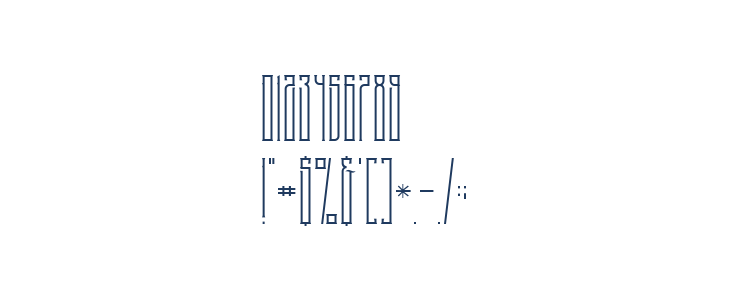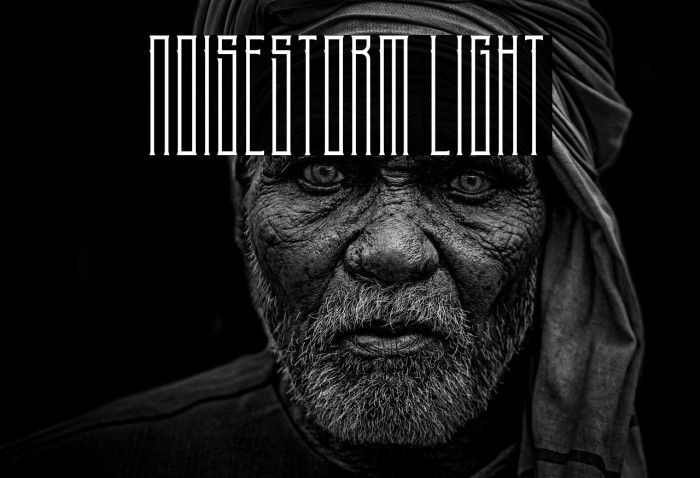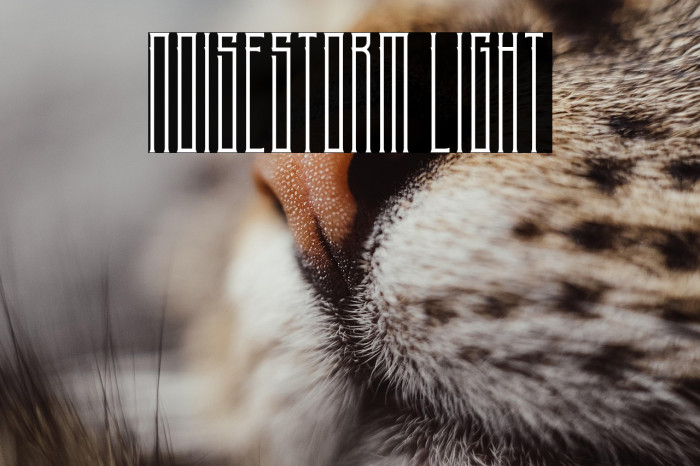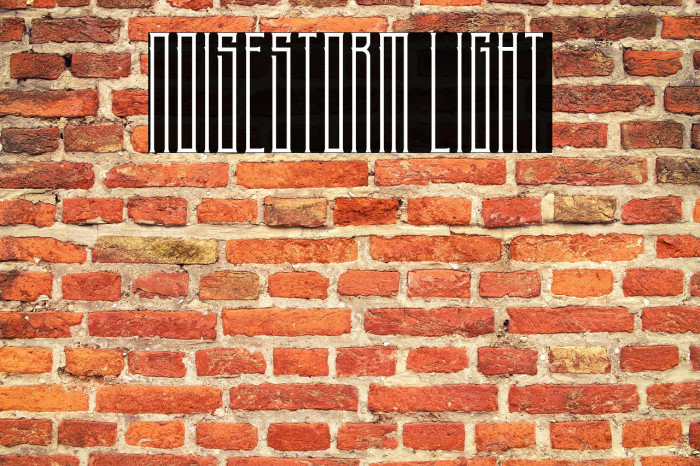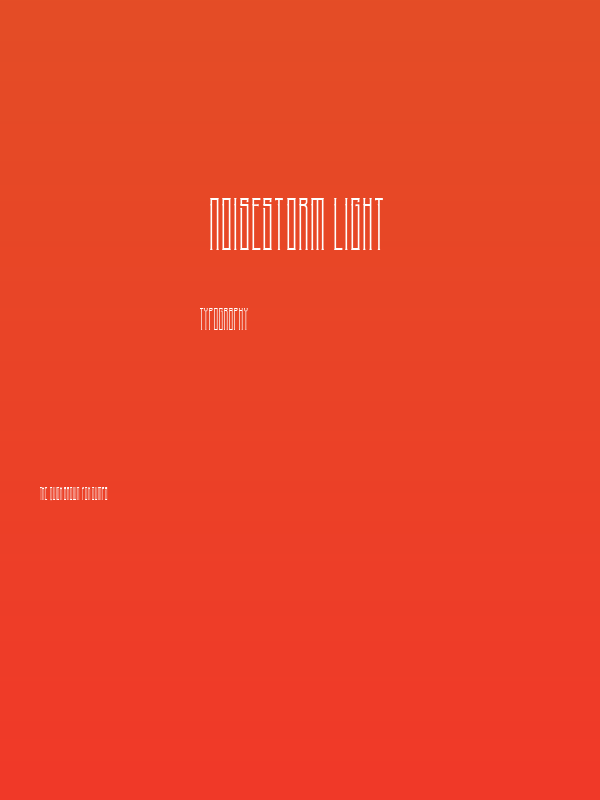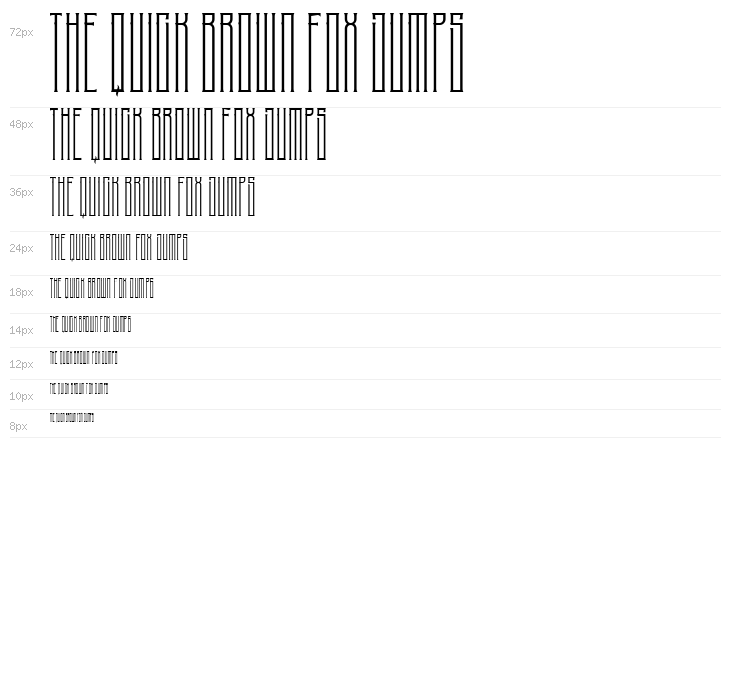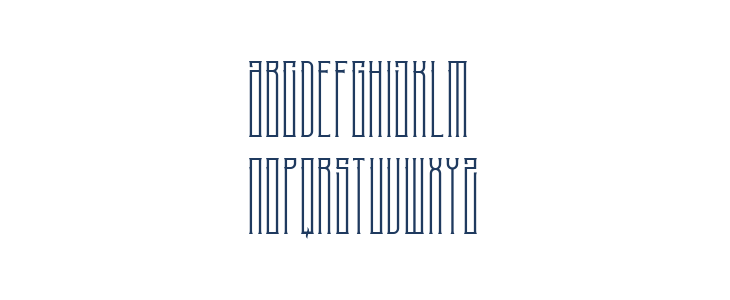
NoiseStorm Light Font
NoiseStorm Light Description
This font features a tall and narrow structure, characterized by its elongated and thin letterforms. The vertical emphasis is prominent, with minimal horizontal strokes, giving it a sleek and modern appearance. The characters are uniformly spaced, maintaining a consistent rhythm throughout the typeface. The uppercase and lowercase letters share similar heights, enhancing the uniformity and creating a cohesive look. The numerals and special characters follow the same design principles, ensuring a harmonious integration within the font family. This typeface is ideal for projects that require a contemporary and stylish aesthetic.
| Proposed Projects | Ideal for fashion magazines, modern branding, posters, and editorial design. |